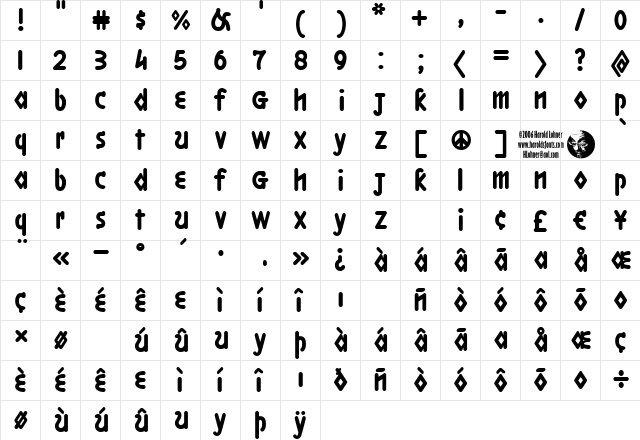
Boston LineBold Aligned Regular
Design Context for Boston LineBold Aligned Typeface
Boston LineBold Aligned is a composed and adaptable typeface that performs quietly and consistently across a wide range of design contexts. Its bold stroke weight gives it real presence on the page.